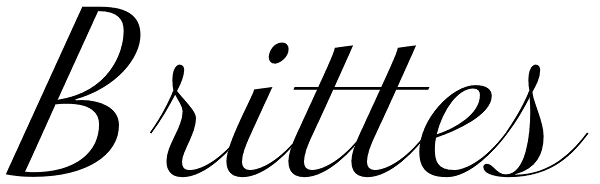
Brittes
Brittes is a fontface inspired in a formally English round hand, also called anglaise or Copperplate script. The calligraphy was the dominant style among 18th-century writing masters, whose copybooks were splendidly printed from models engraved on...